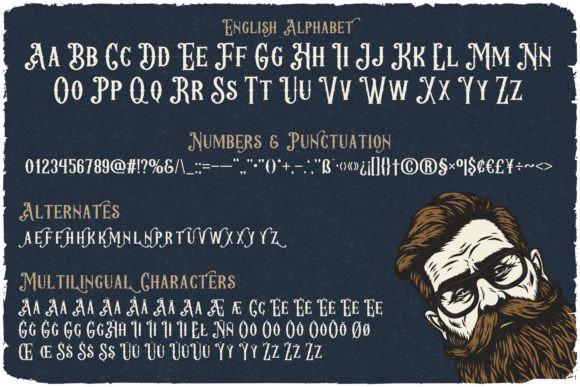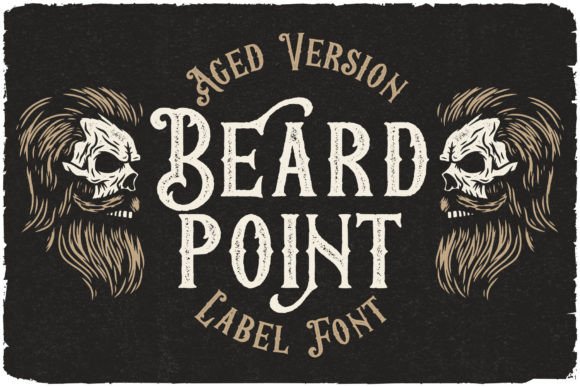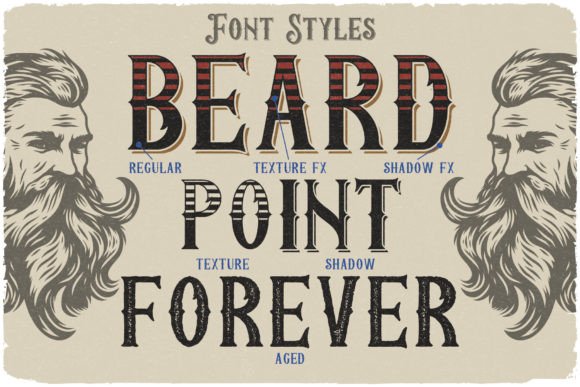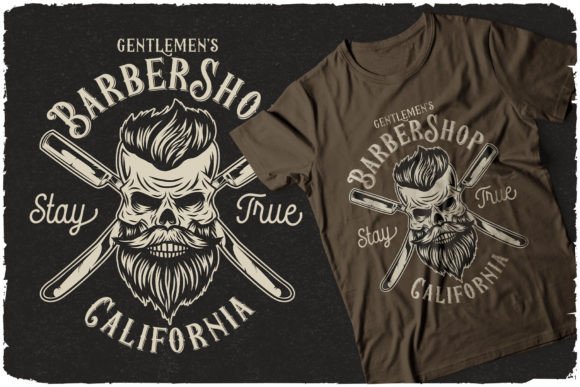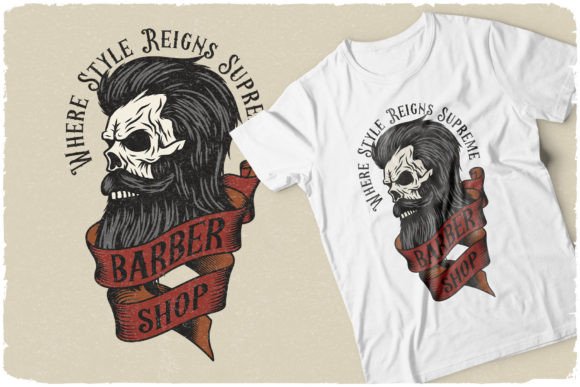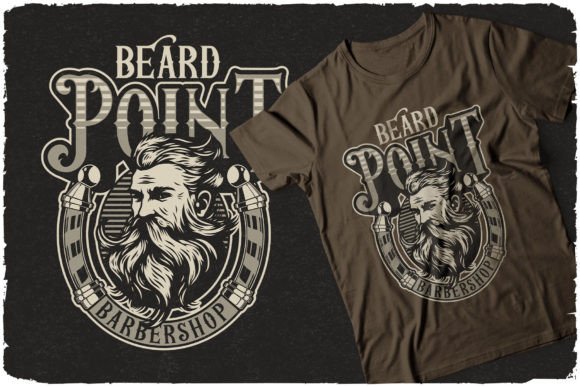
Introducing Beard Point: A Vintage Label Font with a Timeless Charm
Are you a designer or crafter looking for a font that can add a touch of nostalgia and sophistication to your projects? Look no further than Beard Point, a vintage label font that is sure to impress. With its unique blend of classic and modern elements, this font family is perfect for creating stunning designs that evoke a sense of history and elegance.
What is Beard Point?
Beard Point is a carefully crafted font family that is inspired by the aesthetic of vintage labels. Its name is derived from the idea of a point or a marker, which is often used to add a touch of personality to a design. This font family consists of six styles: Regular, Shadow, Texture, Shadow FX, Texture FX, and Aged, each with its own unique characteristics and charm.
Key Features of Beard Point
So, what makes Beard Point stand out from other fonts? Here are some of its key features:
• Multilingual Support: Beard Point supports multiple languages, making it a great choice for designers and crafters who work with international clients or want to create designs that cater to a global audience.
• Additional Characters: This font family comes with a range of additional characters, including punctuation marks, symbols, and ligatures, which can be used to add a touch of personality to your designs.
• Six Styles to Choose From: With six styles to choose from, you can experiment with different looks and feels to find the one that works best for your project.
• Vintage Inspiration: Beard Point is inspired by the aesthetic of vintage labels, making it perfect for creating designs that have a nostalgic or retro feel.
How to Use Beard Point in Your Designs
Beard Point is a versatile font that can be used in a wide range of design projects, including:
• Posters: Create eye-catching posters that grab attention with Beard Point’s bold and elegant lettering.
• T-Shirts: Add a touch of personality to your t-shirt designs with Beard Point’s unique and stylish font.
• Labels: Use Beard Point to create labels that have a vintage or retro feel, perfect for products, packaging, or branding.
• Logos: Create stunning logos that stand out with Beard Point’s elegant and sophisticated lettering.
Tips for Getting the Most Out of Beard Point
Here are some tips for getting the most out of Beard Point:
• Experiment with Different Styles: Try out different styles to find the one that works best for your project.
• Use it with Other Fonts: Combine Beard Point with other fonts to create a unique and interesting look.
• Pay Attention to Kerning: Make sure to adjust the kerning to ensure that your text looks balanced and visually appealing.
In conclusion, Beard Point is a vintage label font that is sure to impress designers and crafters alike. With its unique blend of classic and modern elements, multilingual support, and additional characters, this font family is perfect for creating stunning designs that evoke a sense of history and elegance. Whether you’re working on a poster, t-shirt, label, or logo, Beard Point is a great choice for adding a touch of sophistication and style.